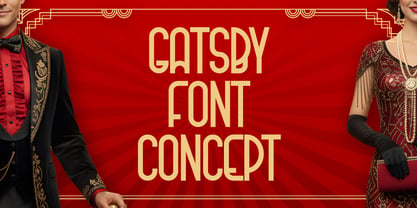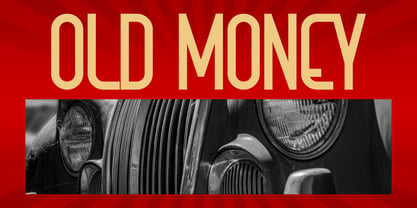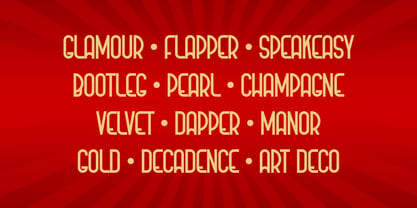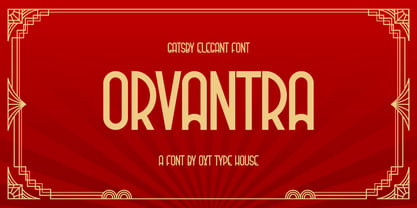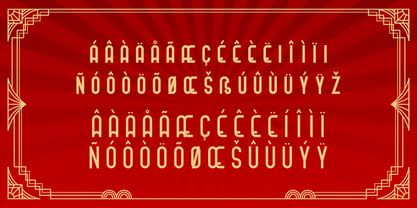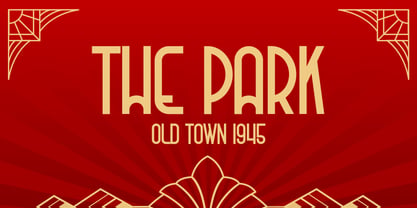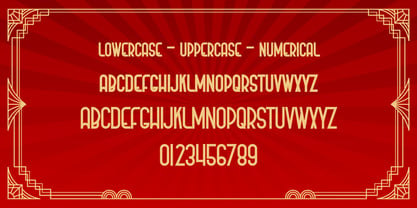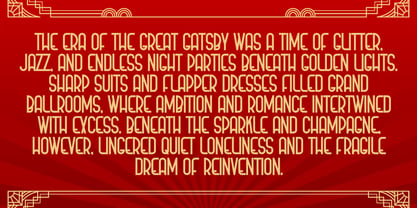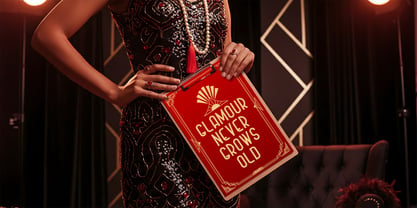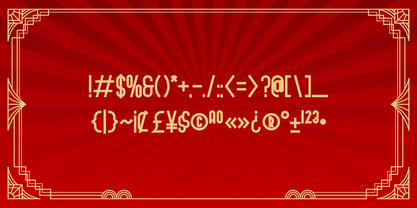
Orvantra
by Oxt Type House
The Orvantra Font Family was designed by Oksta Aziz Rachmaddan and published by Oxt Type House. Orvantra contains 1 styles. More about this family
Orvantra is an elegant Art Deco typeface inspired by the glamour and geometric sophistication of the 1920s Gatsby era. Built with refined proportions, sleek vertical stress, and distinctive curved cut details, it captures the luxury, confidence, and timeless charm of classic vintage typography while remaining clean and versatile for modern design. This font shines in upscale branding, luxury packaging, editorial layouts, event invitations, fashion campaigns, posters, signage, and logo design. The tall, balanced letterforms create a strong presence for headlines, while its decorative subtleties add character without overwhelming the composition. Orvantra pairs beautifully with minimalist layouts, metallic accents, deep color palettes, and structured grid systems. Designed for creators who want to evoke sophistication and heritage, Orvantra delivers a bold yet graceful statement — perfect for projects that demand elegance, style, and a touch of Art Deco drama.
Designers: Oksta Aziz Rachmaddan
Foundry: Oxt Type House